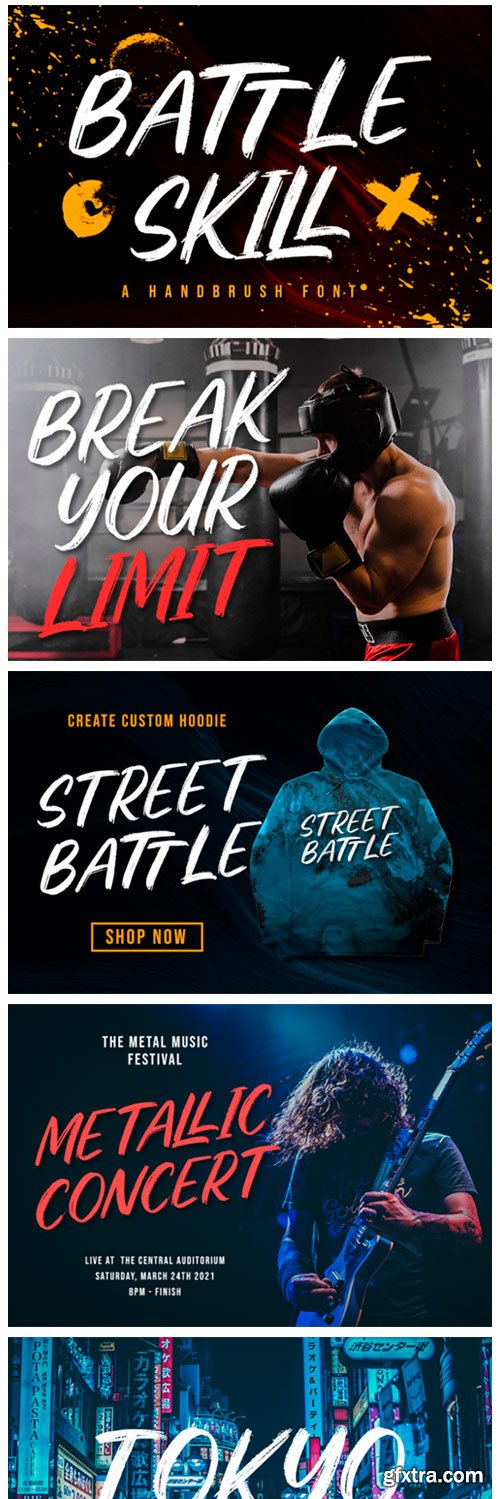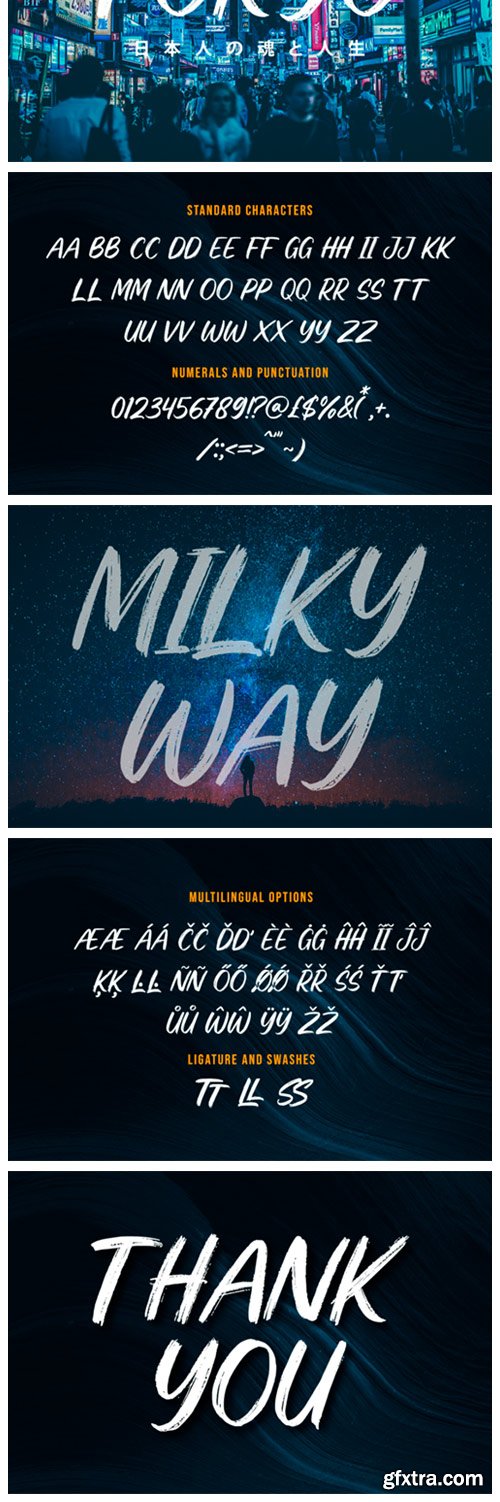
Battle Skill Font
Battle Skill is a new modern brush font, incredibly adaptable to all sorts of designs. It is suitable for any branding, product packaging, invitation, quote, t-shirt, label, poster, logo that you wish to create. This font is PUA encoded which means you can access all of the modern glyphs and swashes with ease! It also features a wealth of special features including alternate glyphs and ligatures.